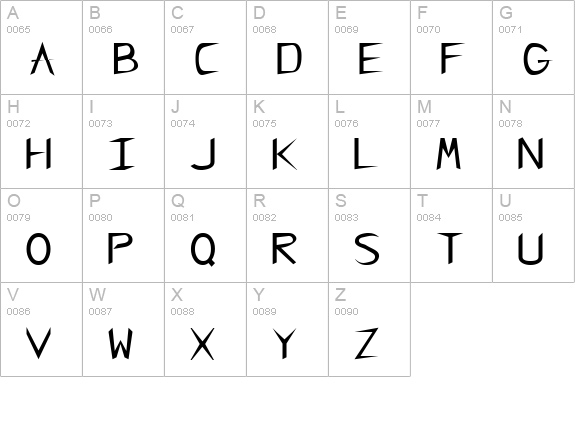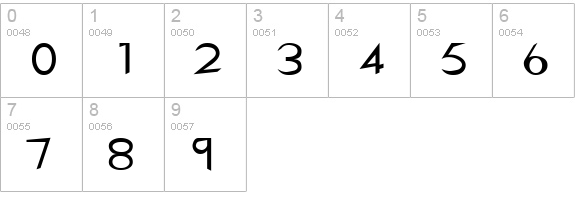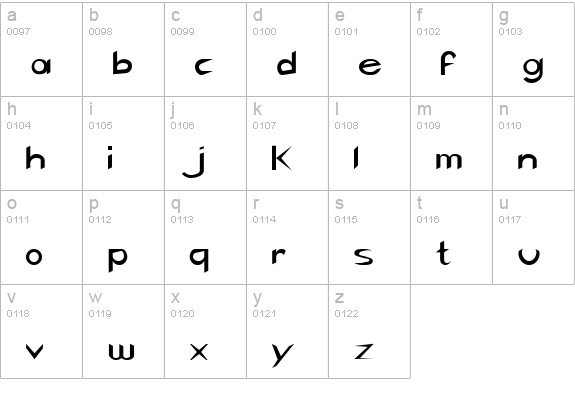
QTKung-Fu Regular Font Details
QTKung-Fu Regular is the standard, neutral variant in the QTKung typeface family \xE2\x80\x94 well suited to general body text, paragraphs, and standard typographic work.
QTKung-Fu Regular font is a captivating and dynamic typeface that exudes power and elegance. It is the perfect choice for any project that requires a touch of martial arts-inspired flair. With its bold and intricate strokes, this font commands attention and leaves a lasting impression. QTKung-Fu Regular is not only visually striking, but it also offers a seamless reading experience. The carefully crafted letterforms ensure legibility, making it suitable for a wide range of applications, from branding and advertising to headlines and posters. What makes QTKung-Fu Regular even more appealing is that it is available for free! Yes, you read that right. This extraordinary font can be downloaded without any cost at FontsMarket.com. Whether you are a professional designer, a student, or simply someone looking to add a unique touch to your creative projects, this font is easily accessible to all. So why wait? Embrace the power and grace of QTKung-Fu Regular font today. Download it for free at FontsMarket.com and unleash its potential in your designs.